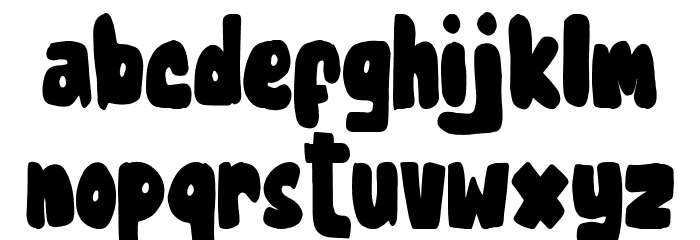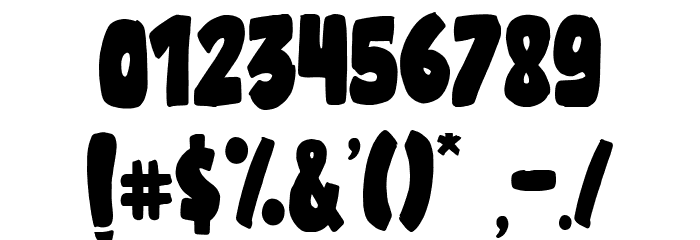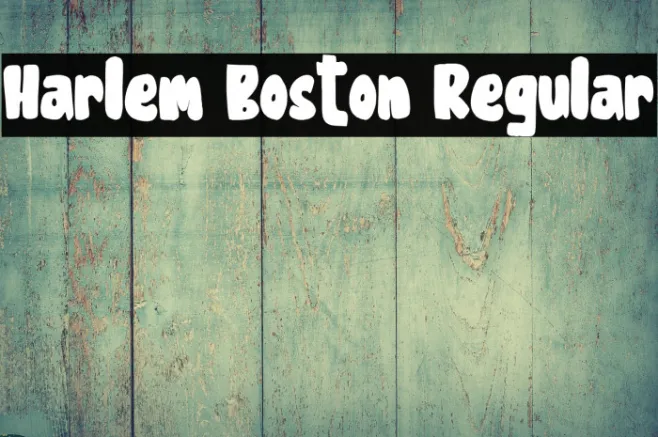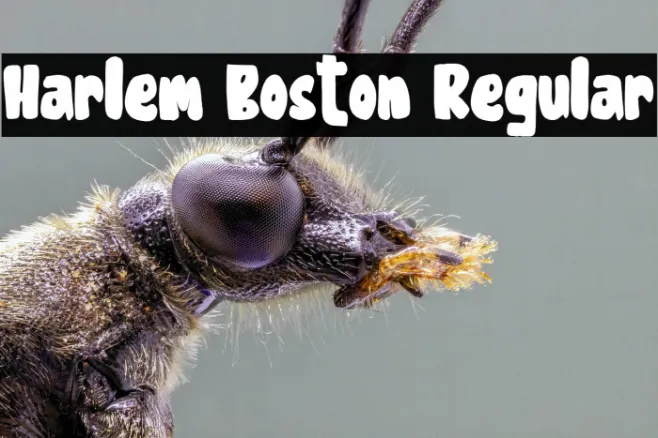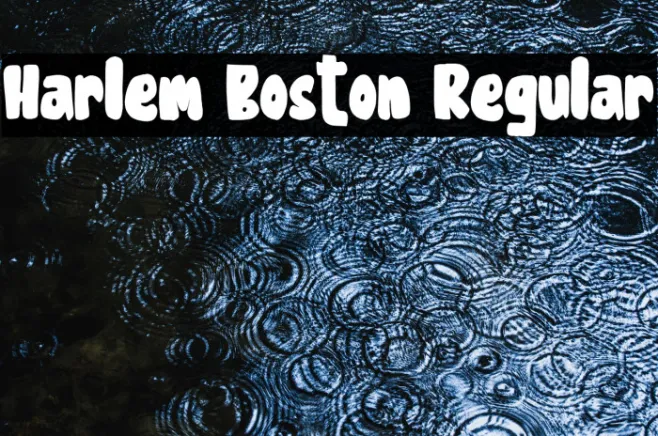
Harlem Boston Regular Font
This font features a bold and playful style with thick, rounded strokes that give it a friendly and approachable appearance. The characters are slightly irregular, adding a hand-drawn feel that enhances its casual and informal vibe. The uppercase and lowercase letters maintain a consistent weight, while the numbers and special characters follow the same design principles, ensuring uniformity across the typeface. The overall look is reminiscent of retro or vintage styles, making it suitable for projects that aim to evoke nostalgia or a sense of fun.
A bold, playful font with thick, rounded strokes and a hand-drawn feel.
- Font: Harlem Boston Regular
- Proposed Projects: Ideal for children's books, playful branding, retro-themed posters, and casual invitations.
- Overall Style: Vintage